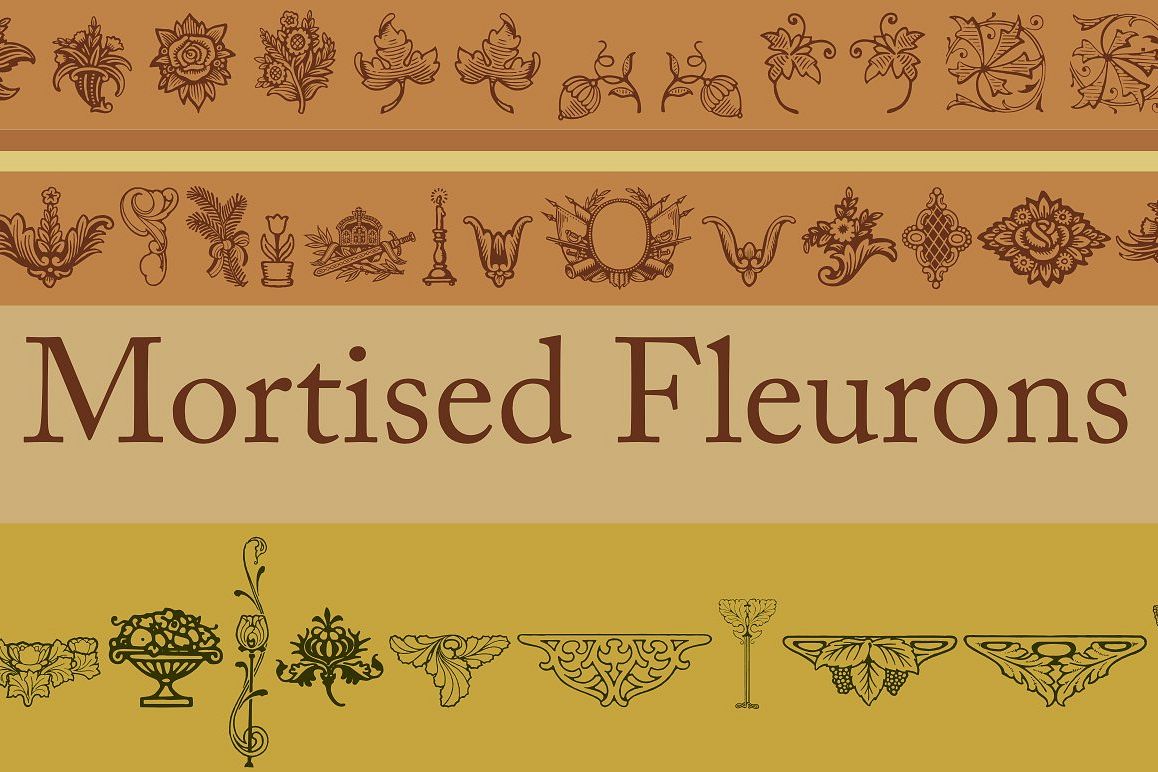
Mortised Fleurons
Mortised Fleurons - Symbols  Liked  Save  Mortised Fleurons - Symbols - 1 A dingbat/decorative display font featuring many different styles of flourishes and ornaments. Great for a vintage antique feel.